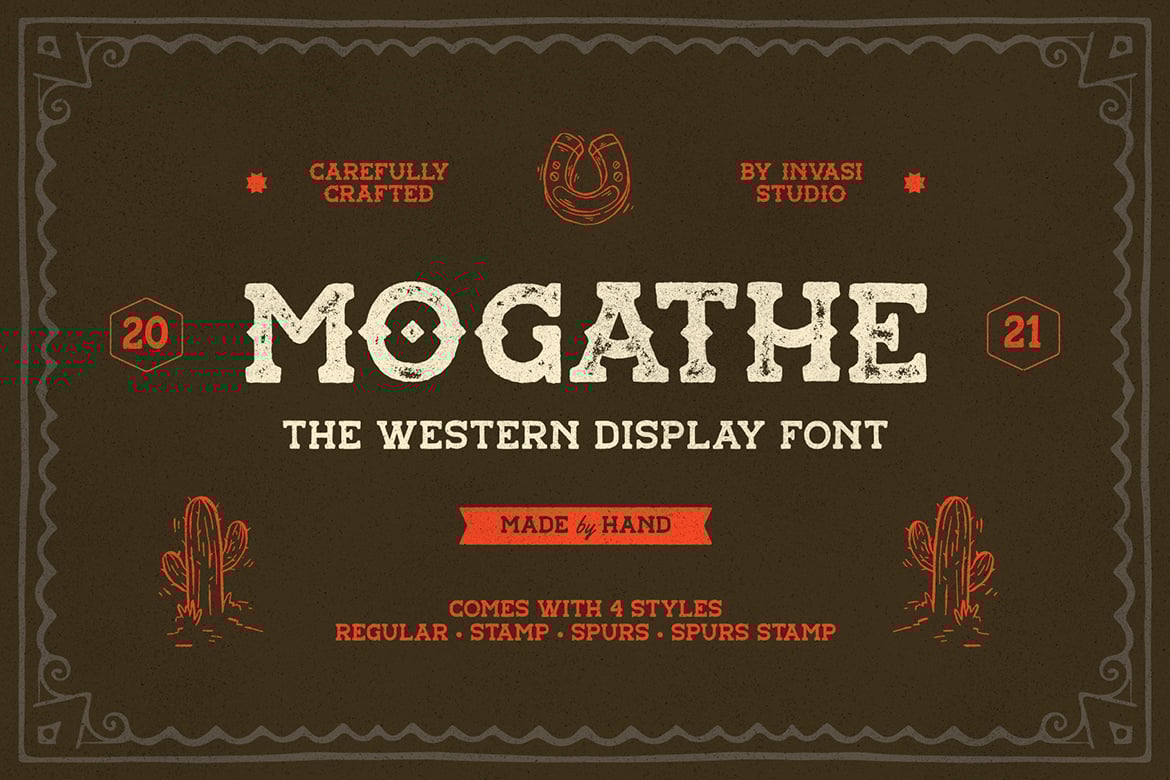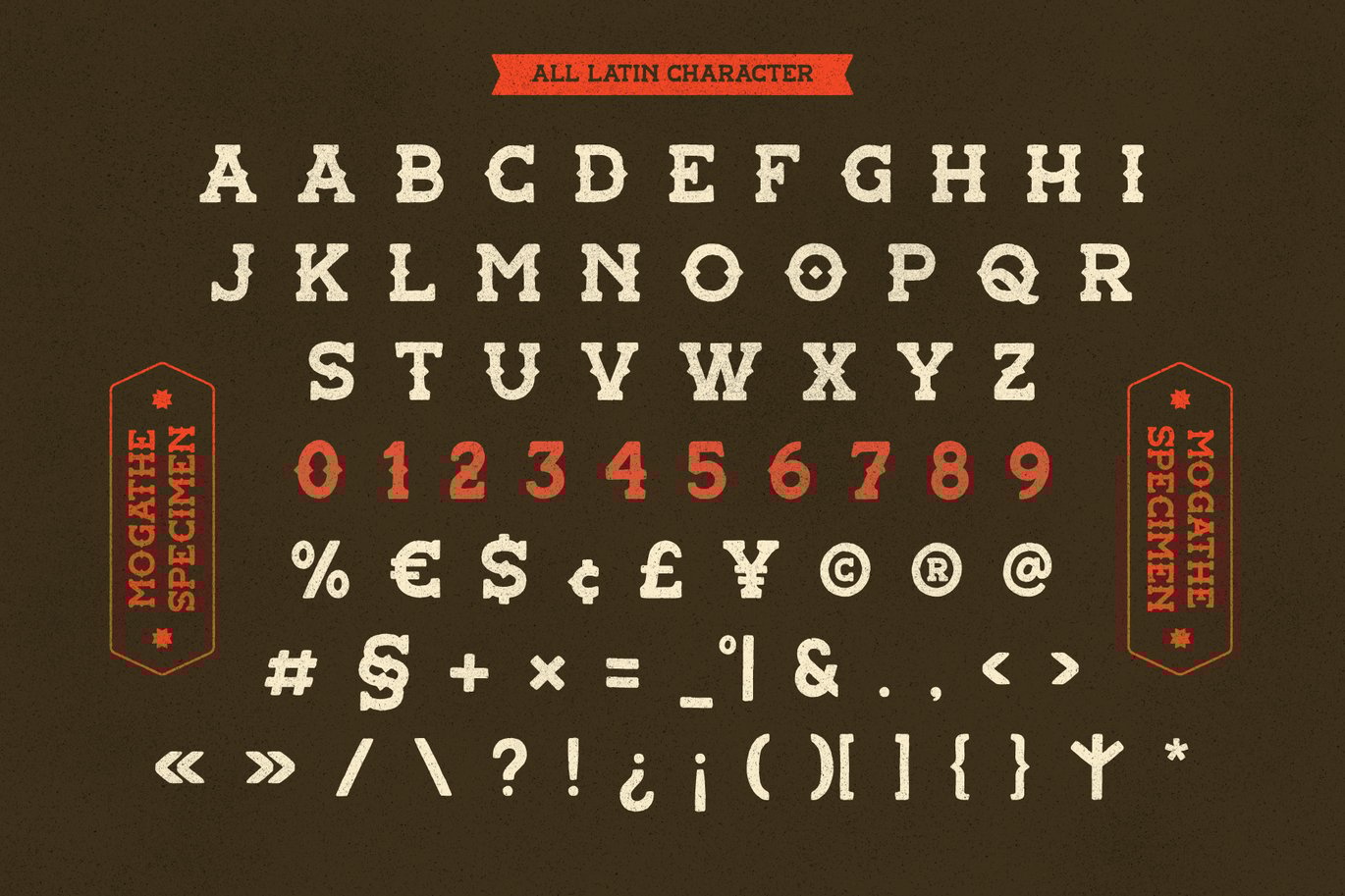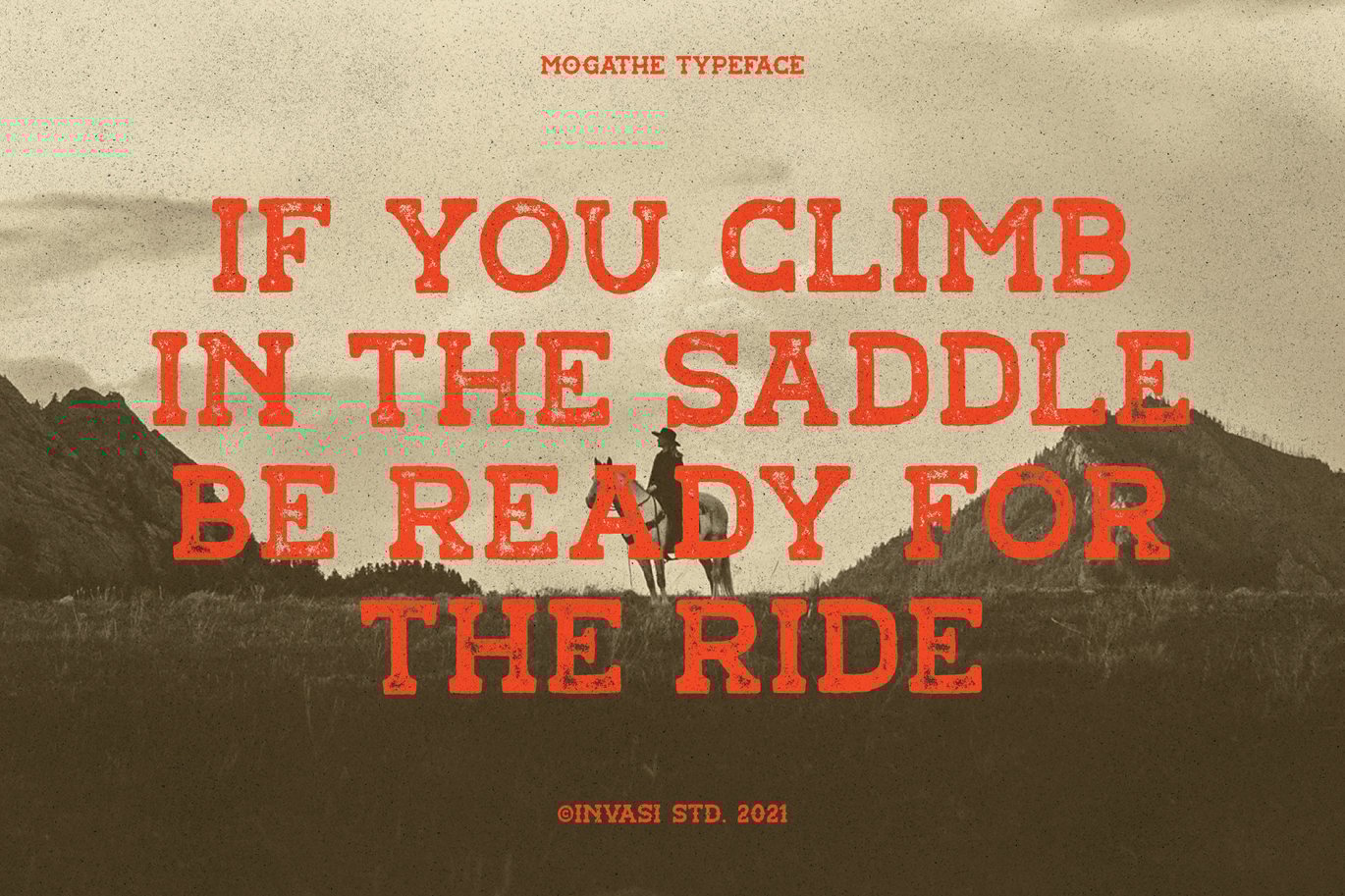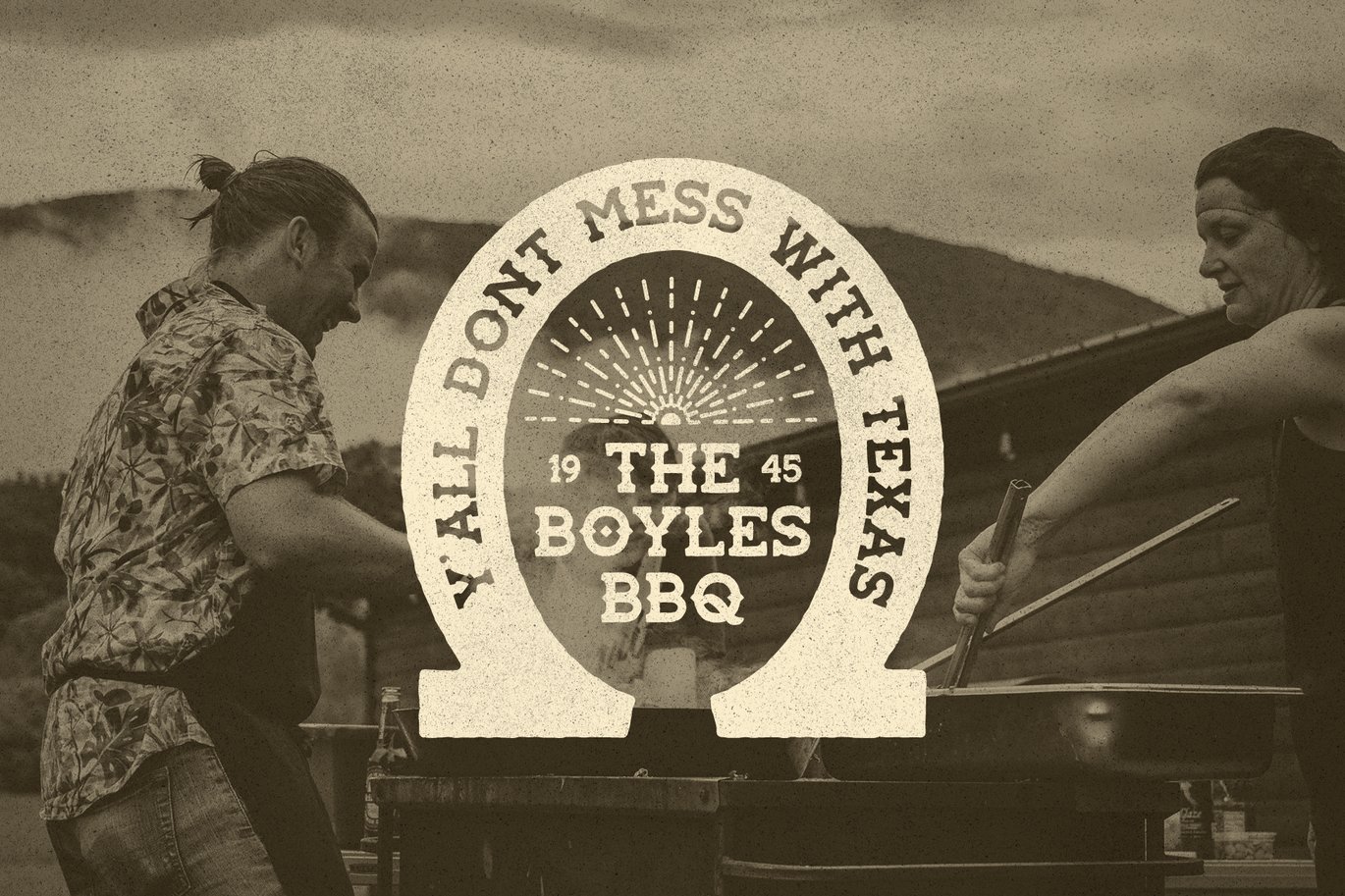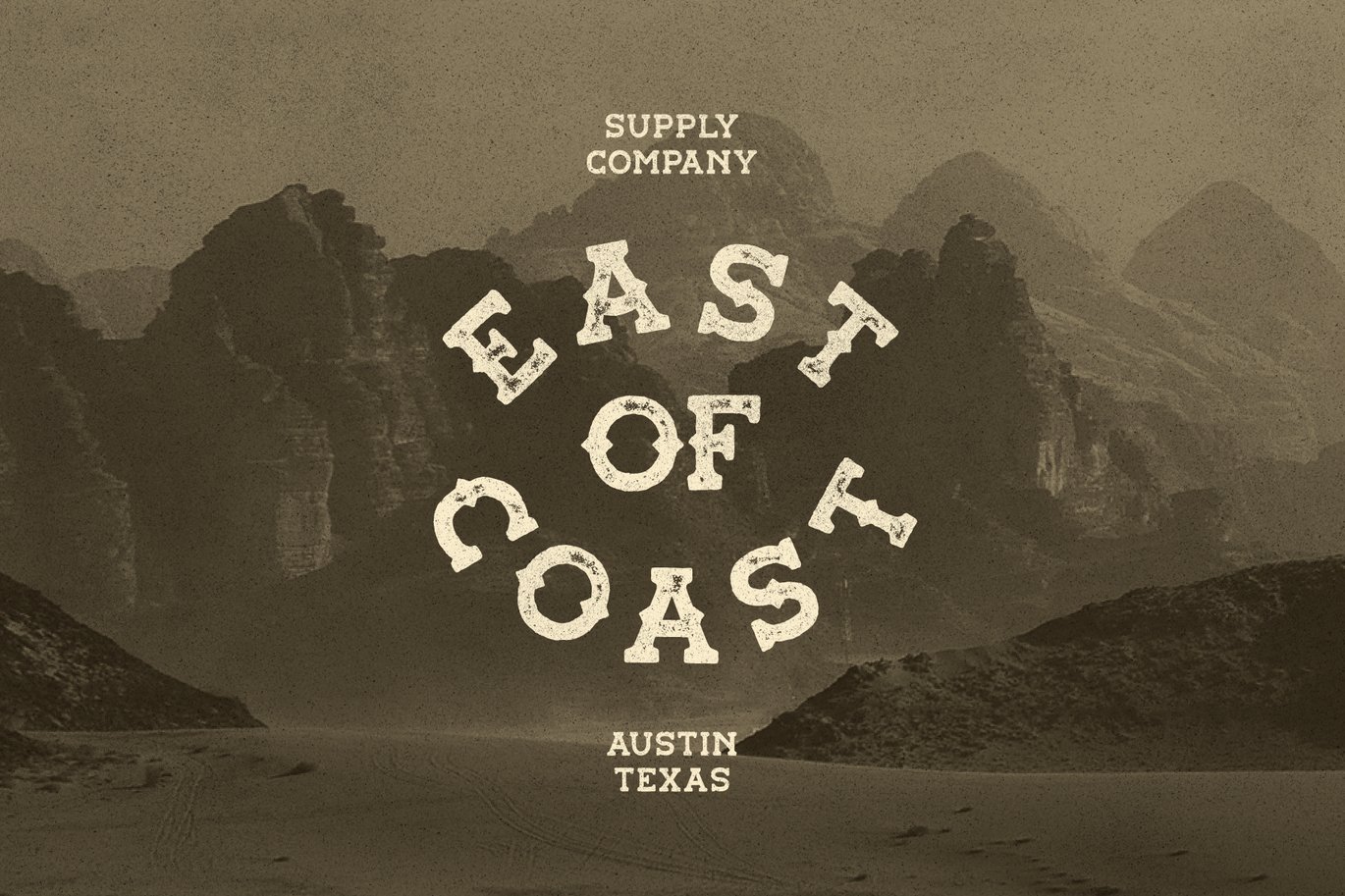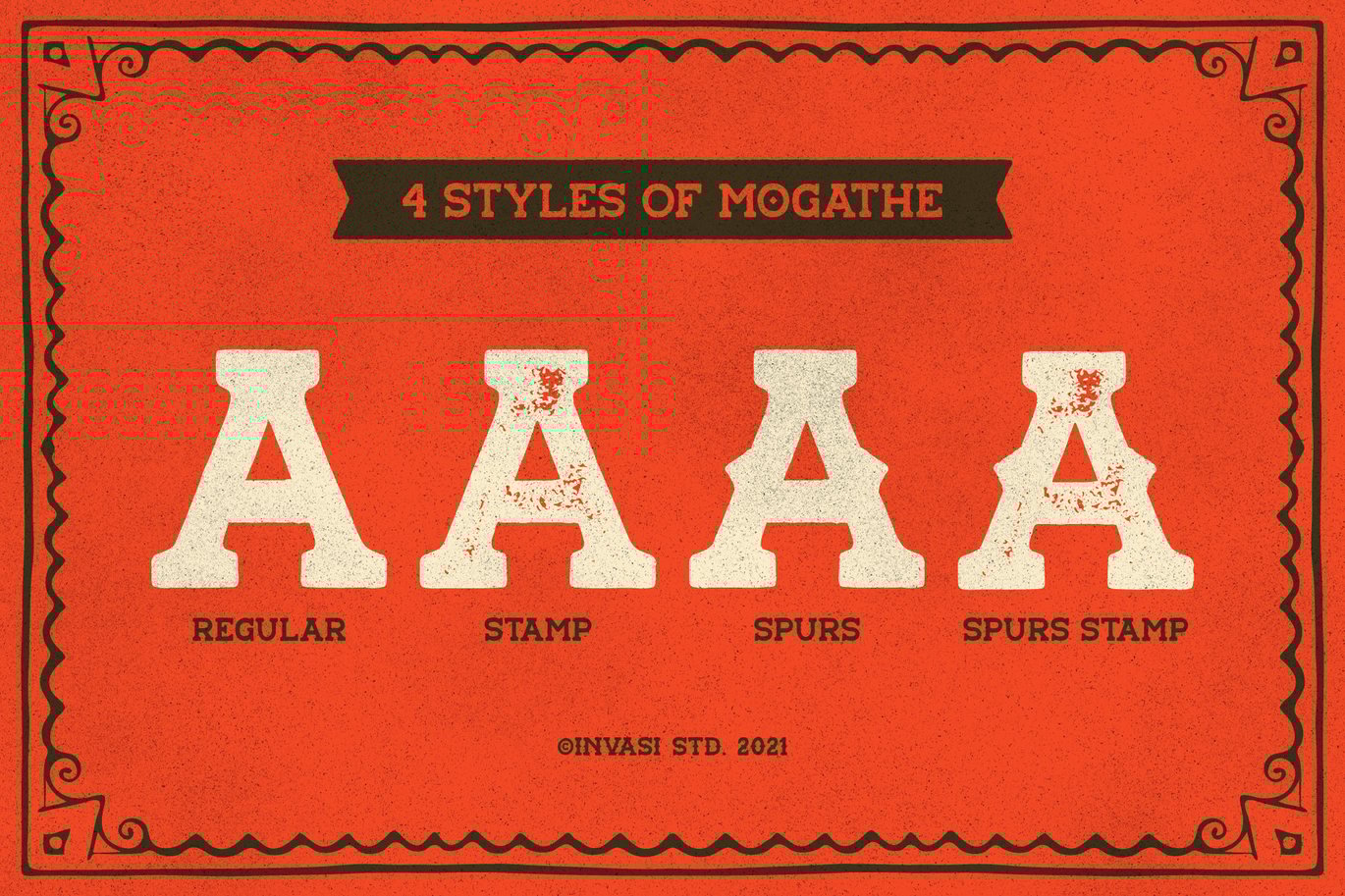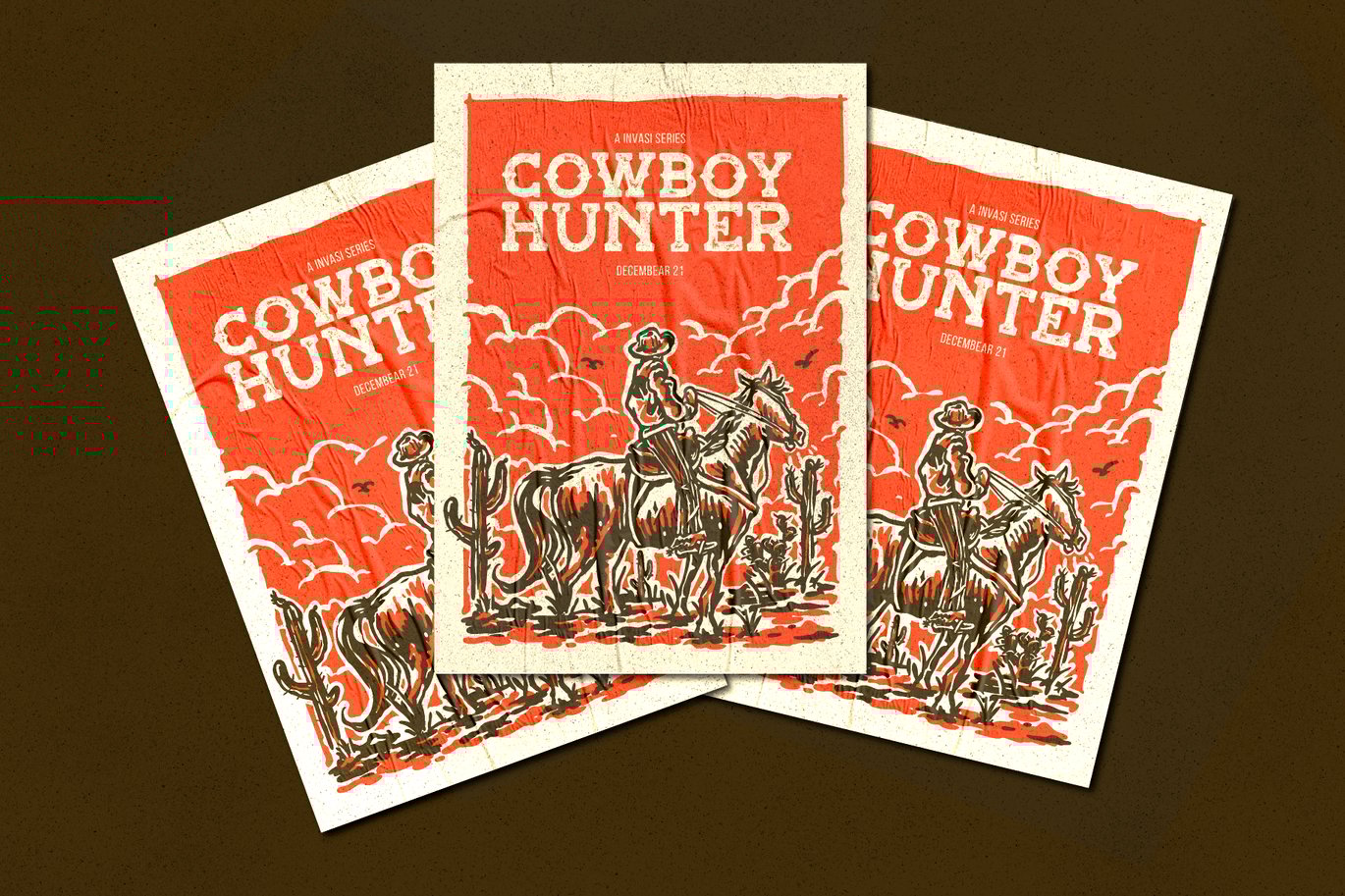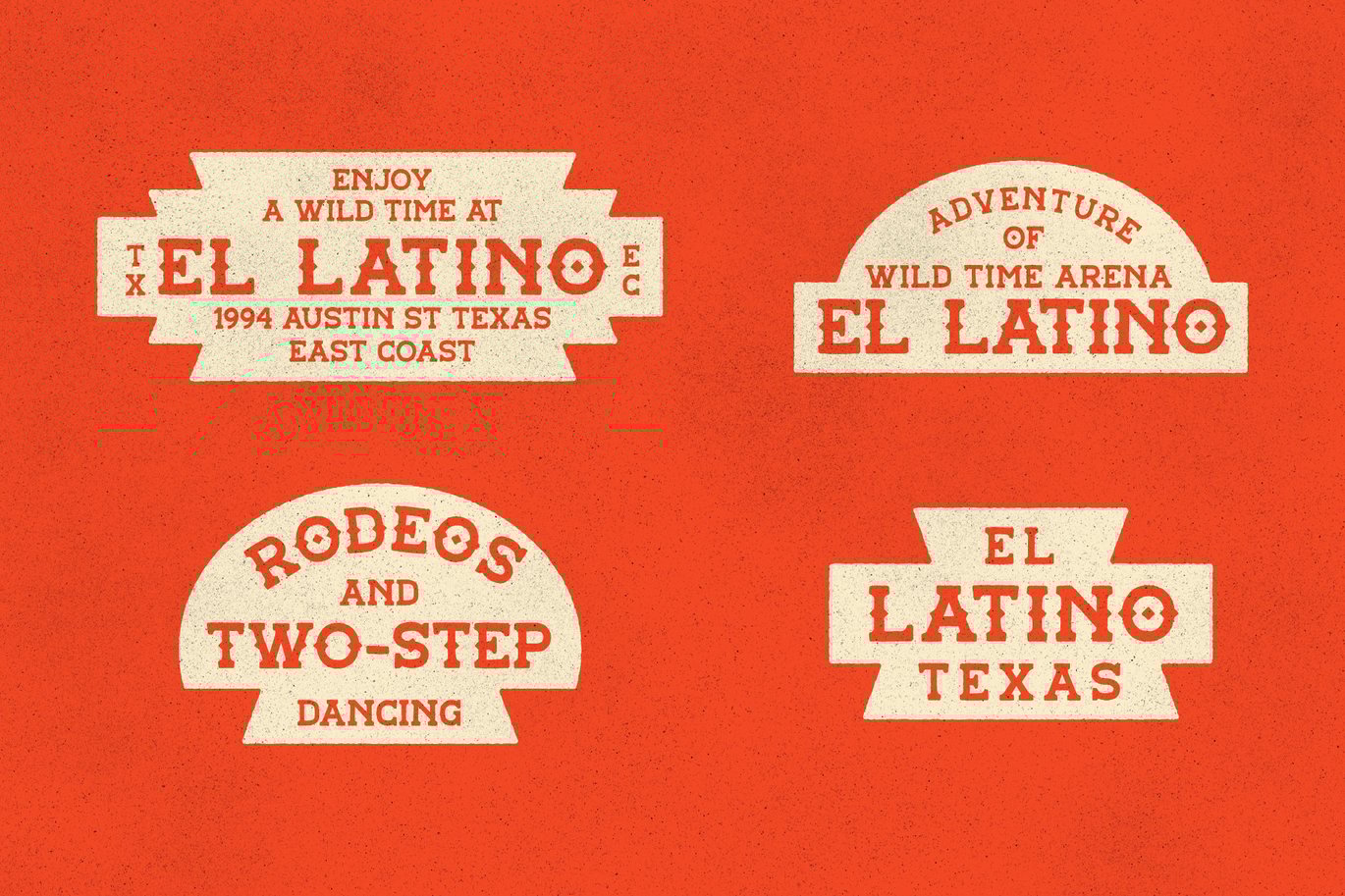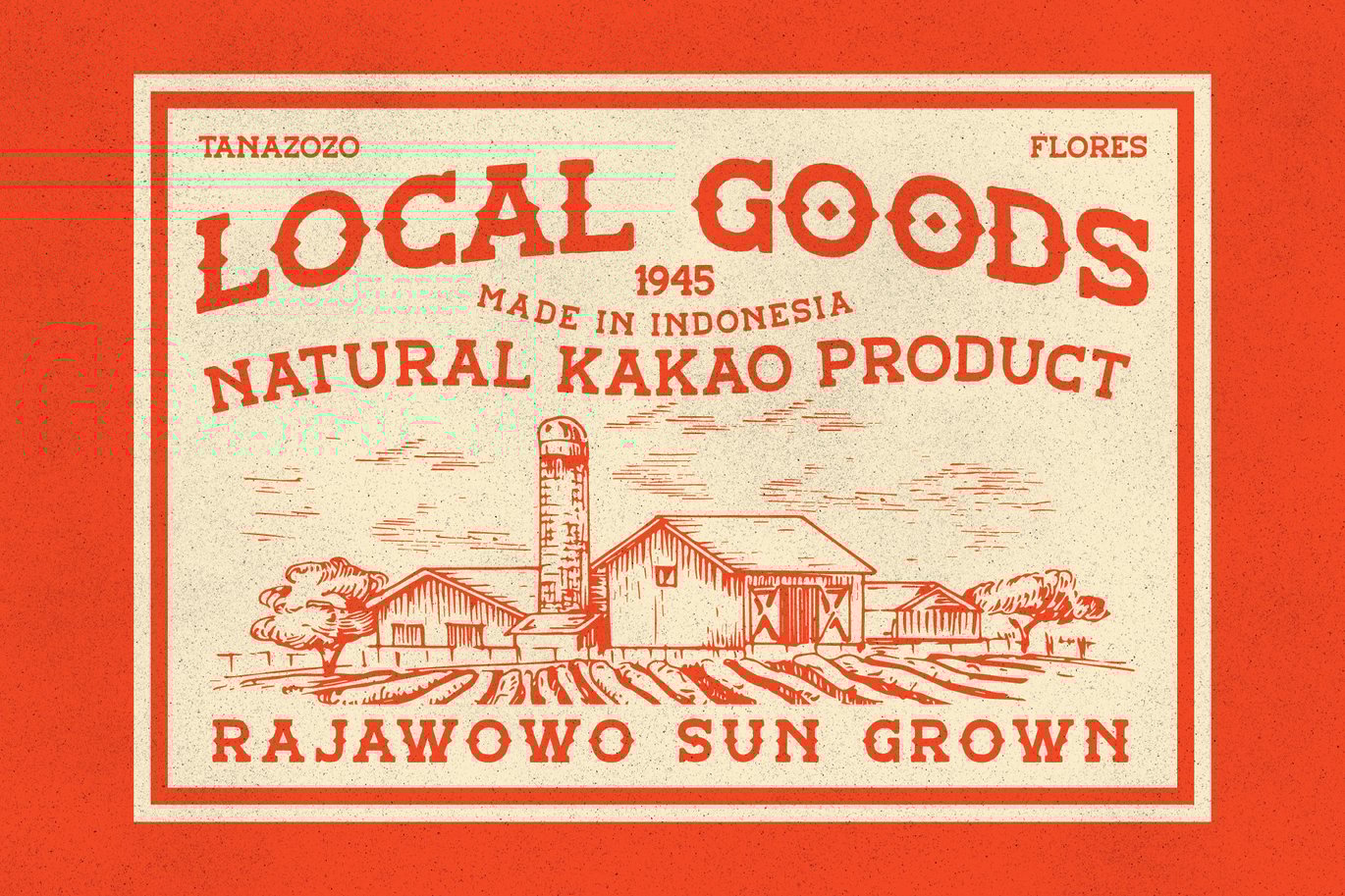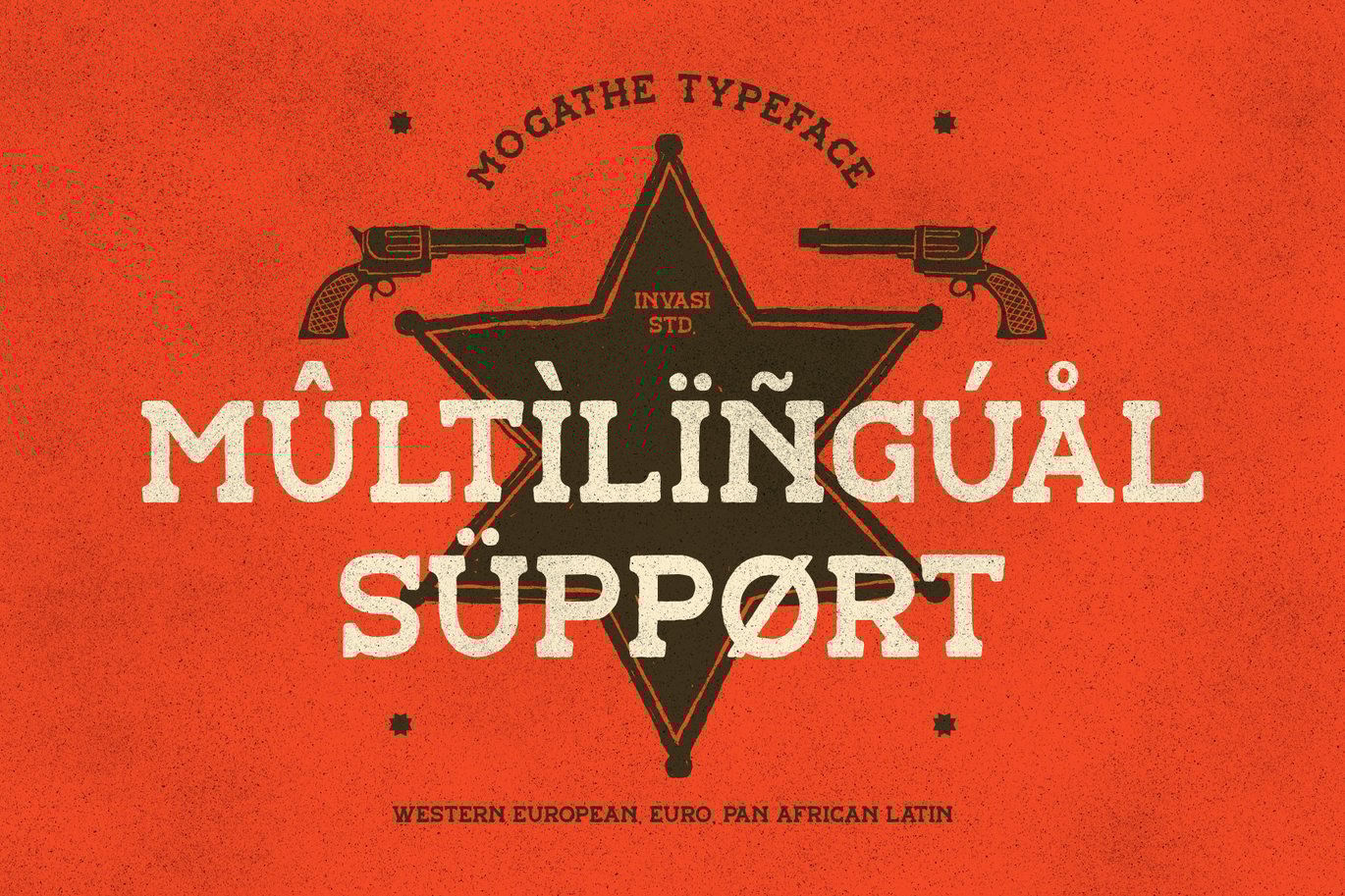
Mogathe – Western Font
Mogathe was inspired by the west life era. Mogathe is a slab serif font with a vintage western look and feel. Four varieties are available: Regular, Stamp, Spurs, and Spurs Stamp. The use of this font results in carefully-crafted styles.
Mogathe font is ideal for branding projects or packaging that need a vintage western feel.